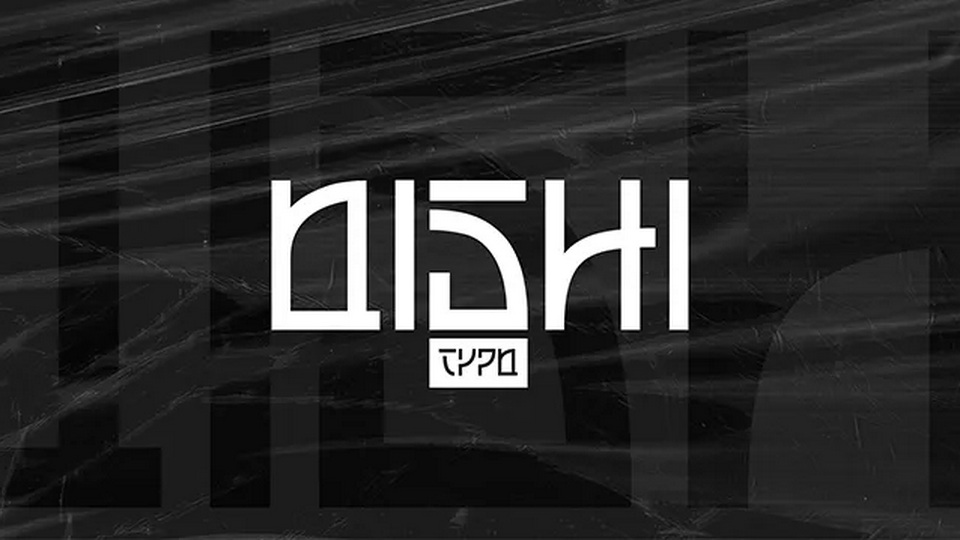
Download Oishi font, a modular geometric display typeface with a unique appearance. Oishi font is well suited for applications such as posters, album covers, games or futuristic design projects.
Designer: Bartlomiej Pluta